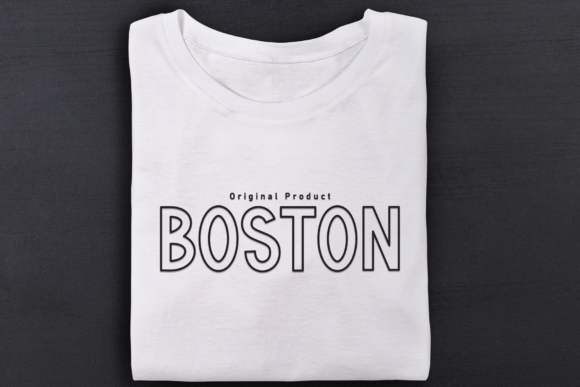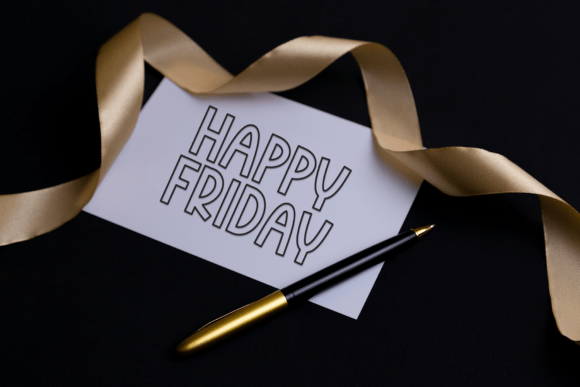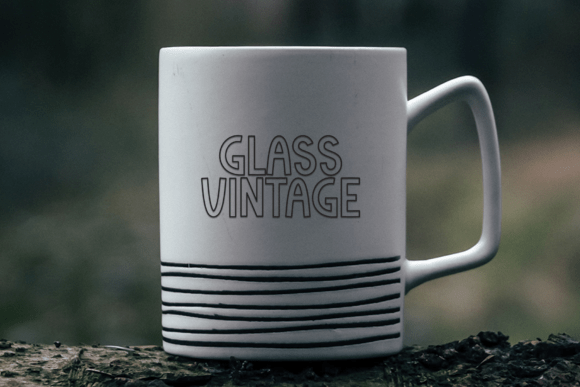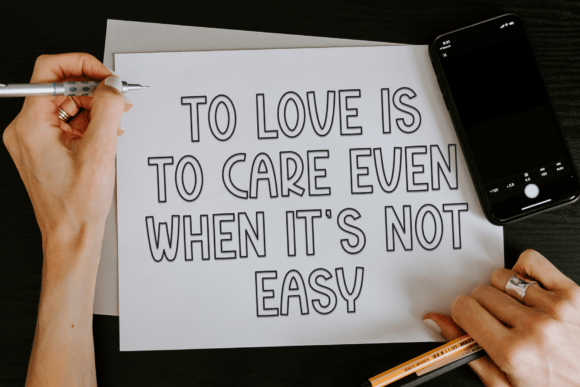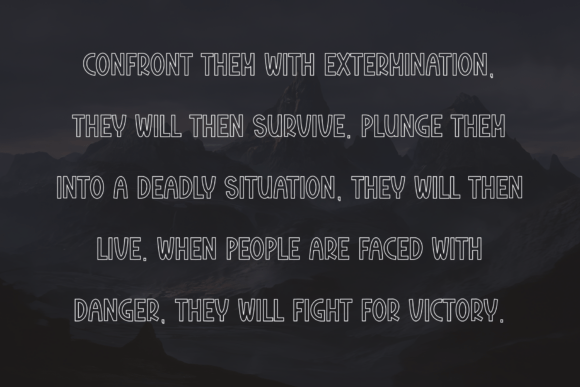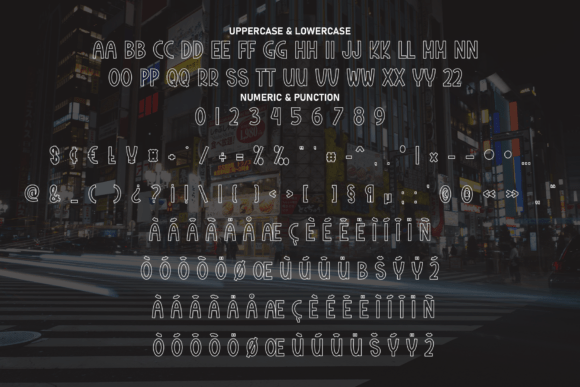
The Allure of Blackstreet Font: A Designer’s Delight
I’ll never forget the moment I stumbled upon Blackstreet Font while working on a wedding invitation project for a dear friend. I had been searching for the perfect font to capture the warmth and playfulness of the couple’s personalities, but everything I tried seemed to fall flat. That was until I laid eyes on Blackstreet Font – it was love at first sight! ✨ The hand-fashioned charm and lively charisma of this display font instantly lifted my design, injecting a dose of joy and whimsy that perfectly matched the couple’s vibe.
- ✨ Delightful warmth and inviting charm that adds a personal touch to any design
- ✅ Highly legible and versatile, making it perfect for various creative projects
- 🎉 Extensive OpenType features, glyphs, and stylistic alternates for added customization
- 💕 Perfect for artisanal wedding invitations, heartfelt greeting cards, and more
While Blackstreet Font is an amazing addition to any design project, there are a few things to keep in mind: 🤔
- ⚠️ May not be suitable for very small font sizes or body text due to its ornate nature
Blackstreet Font was crafted with love and care by a talented designer who’s passionate about creating unique, hand-crafted typography. The designer’s inspiration came from the charm of old-fashioned street signs, vintage posters, and handwritten letters. The result is a font that exudes warmth, playfulness, and a touch of nostalgia.
Q: What makes Blackstreet Font so special?
A: Blackstreet Font’s unique blend of hand-fashioned charm and lively charisma sets it apart from other fonts. Its extensive OpenType features, glyphs, and stylistic alternates make it incredibly versatile.
Q: Is Blackstreet Font suitable for body text?
A: While Blackstreet Font is highly legible, its ornate nature makes it better suited for display text, headings, or short paragraphs. For longer body text, a simpler font may be more suitable.